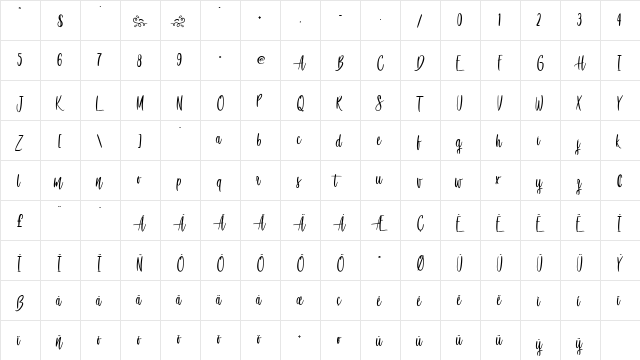
Awesome Birds Regular
| Foundry | Typhoon Type - Suthi Srisopha |
| Designer | Typhoon Type - Suthi Srisopha |
Design Context for Awesome Birds Typeface
Awesome Birds is a composed and adaptable typeface that performs quietly and consistently across a wide range of design contexts.